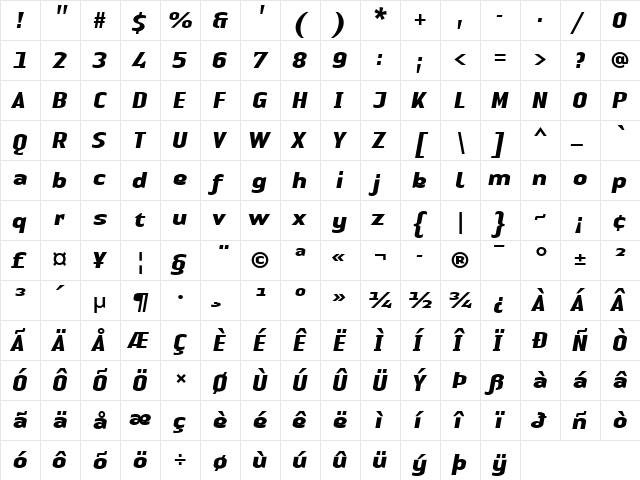
LTAuthenticSans BoldItalic Bold Italic Font Preview
LTAuthenticSans BoldItalic Bold Italic
Design Context for LTAuthenticSans BoldItalic Typeface
LTAuthenticSans BoldItalic takes a measured approach to typography — its balanced proportions and neutral character make it a reliable workhorse for both digital and print work. The slanted form adds forward momentum and visual energy. Its bold stroke weight gives it real presence on the page.
Pro Tip: Use LTAuthenticSans BoldItalic for emphasis, pull quotes, and subheadings where its slanted energy can add rhythm to the layout.